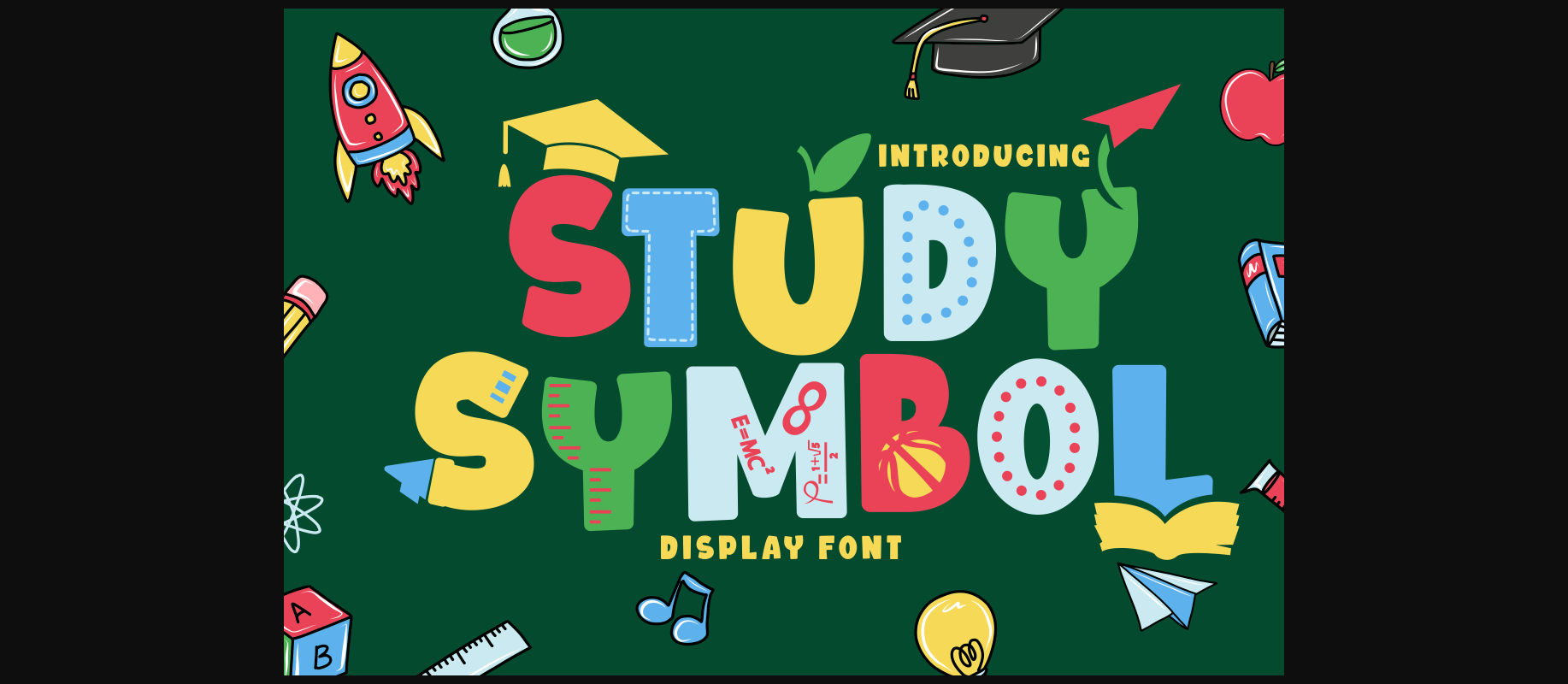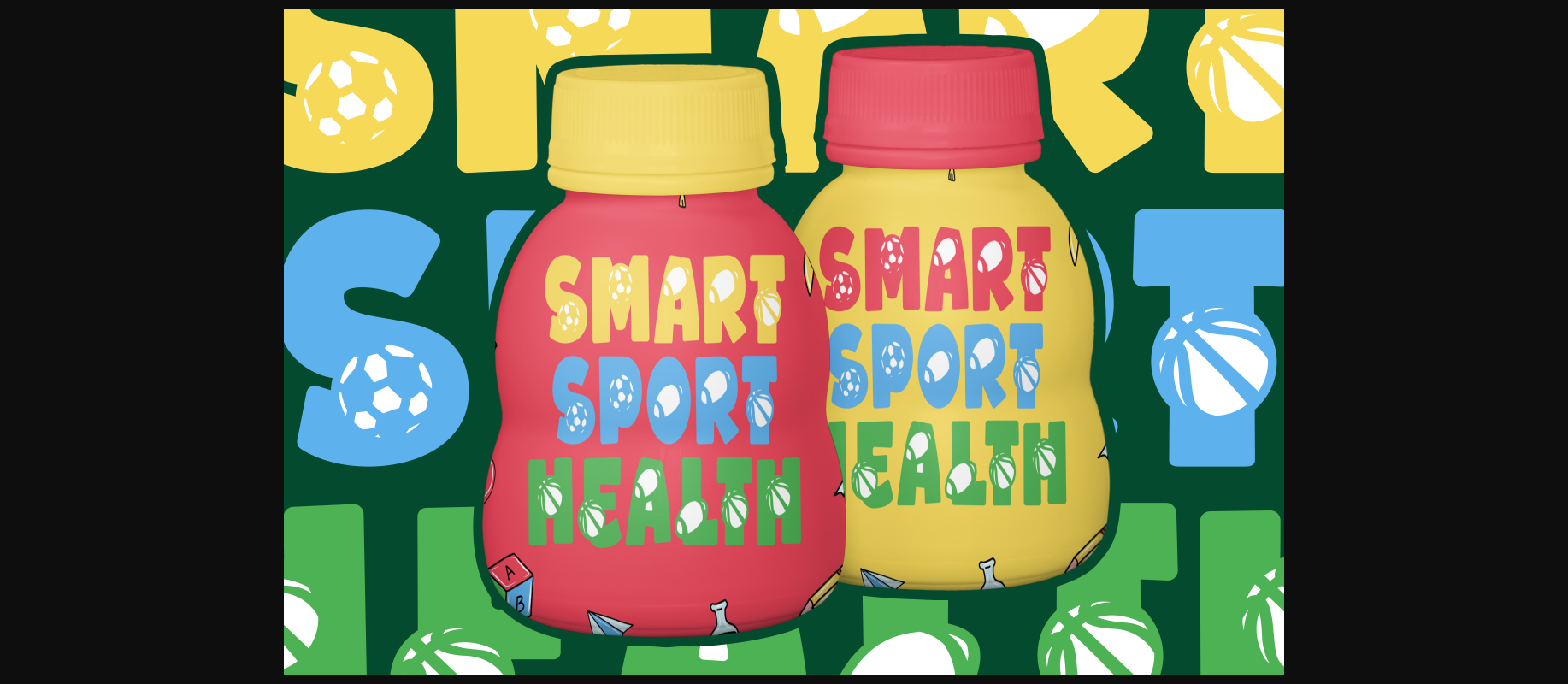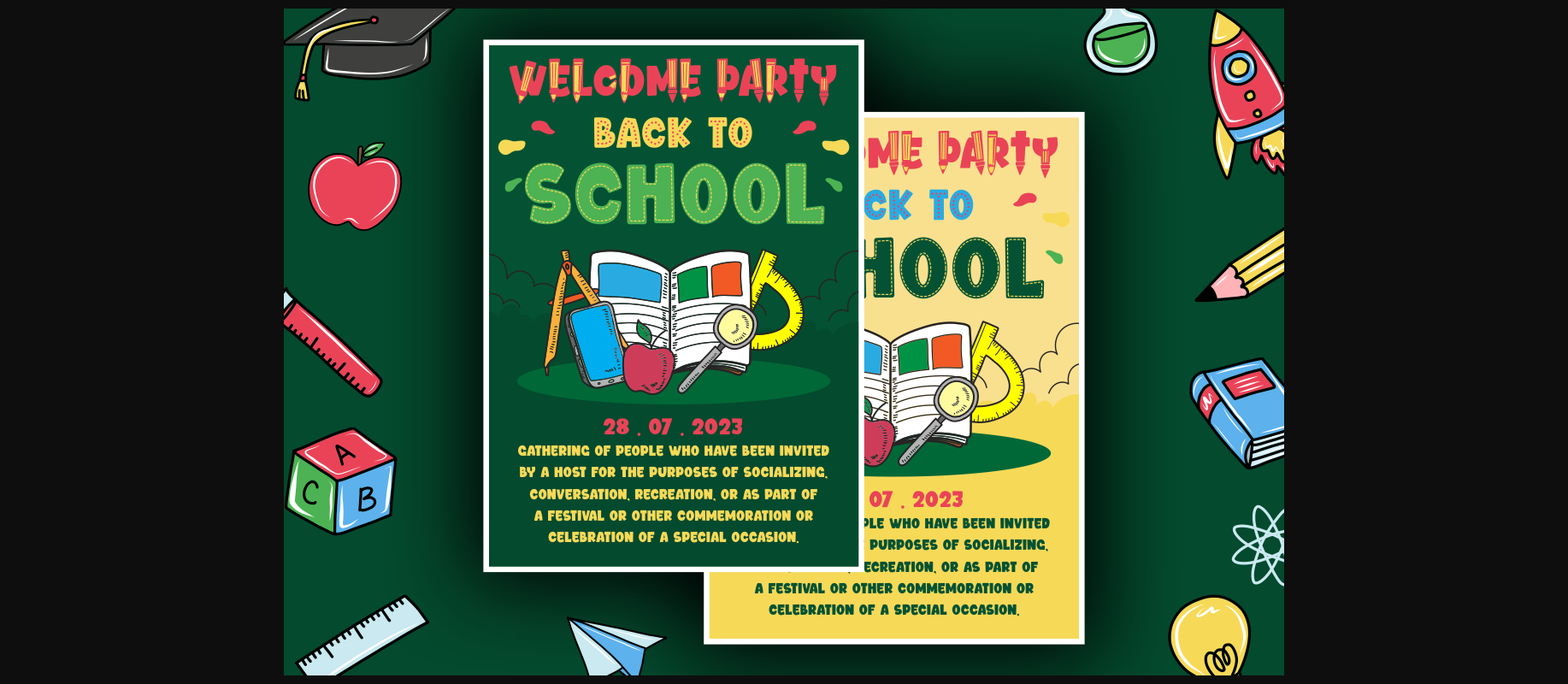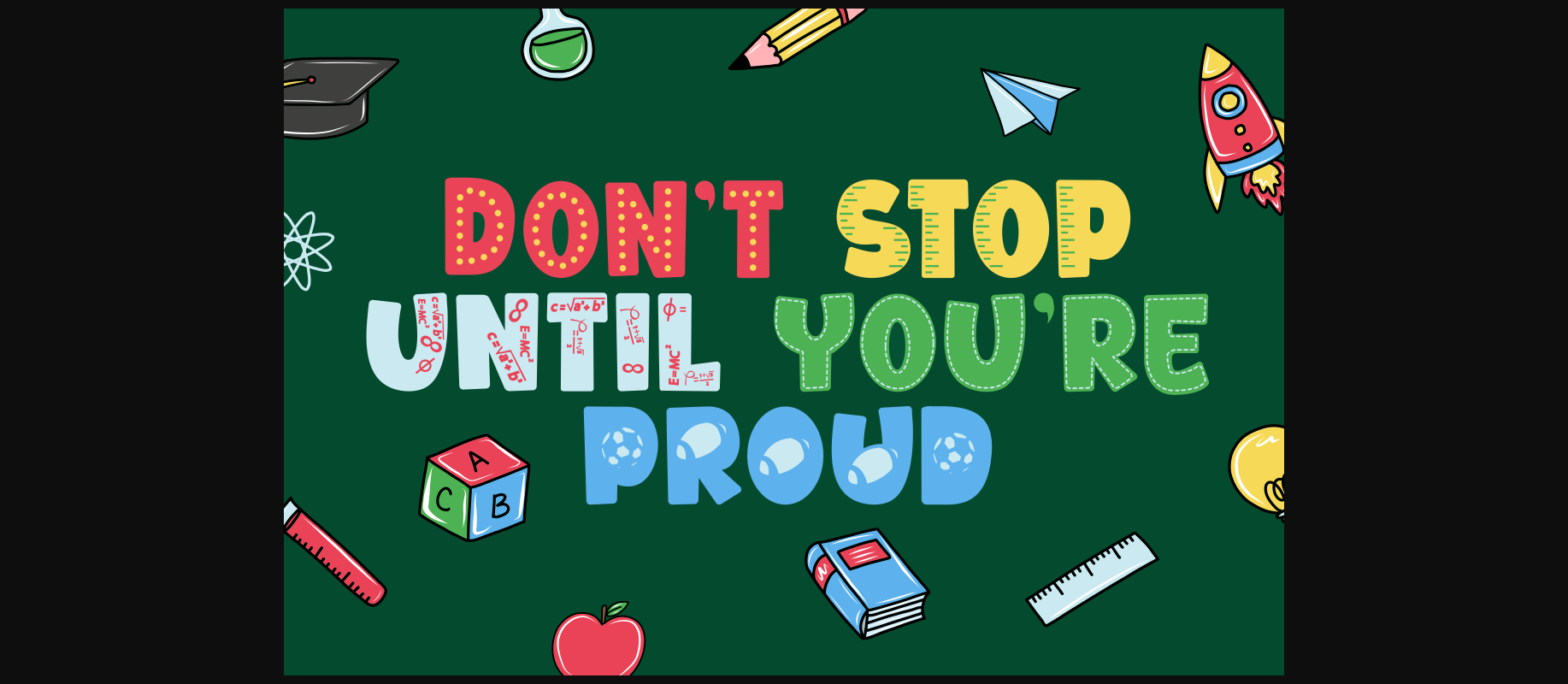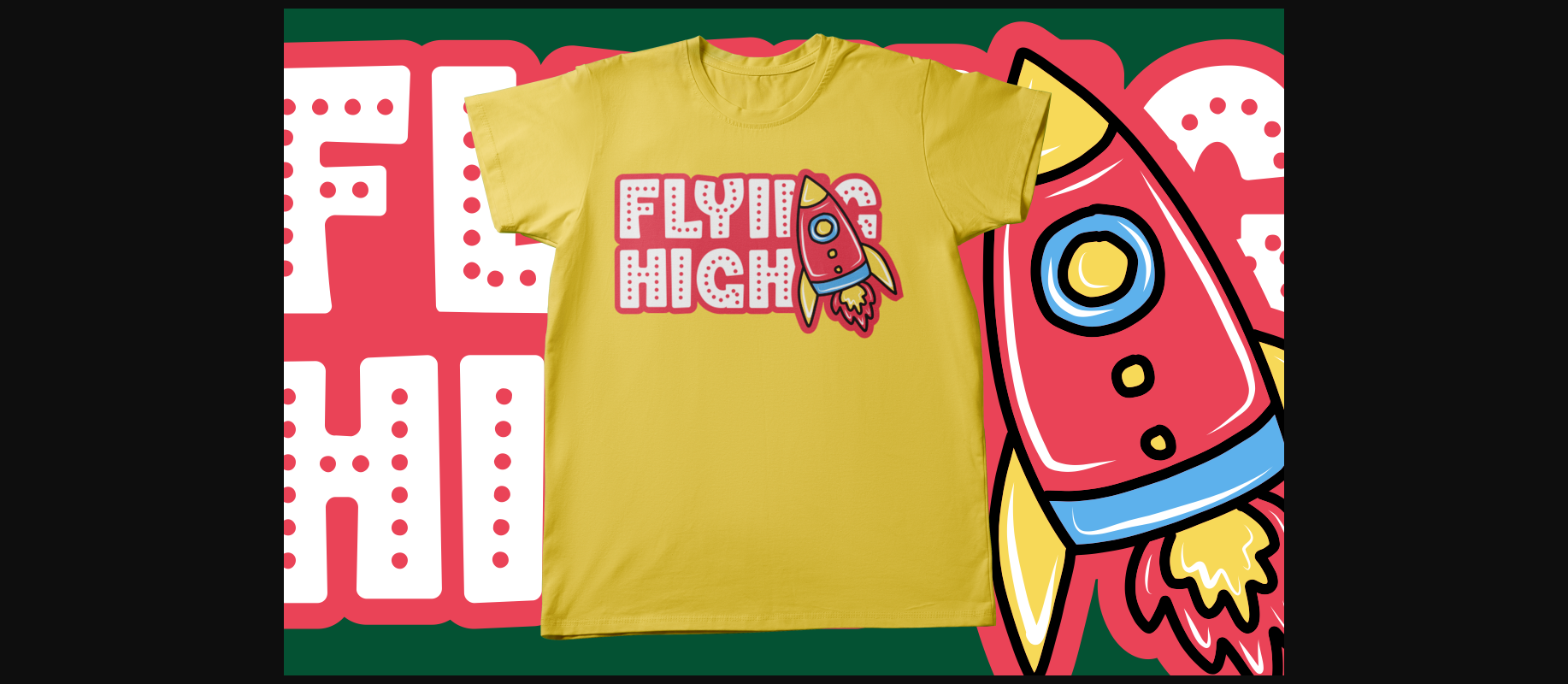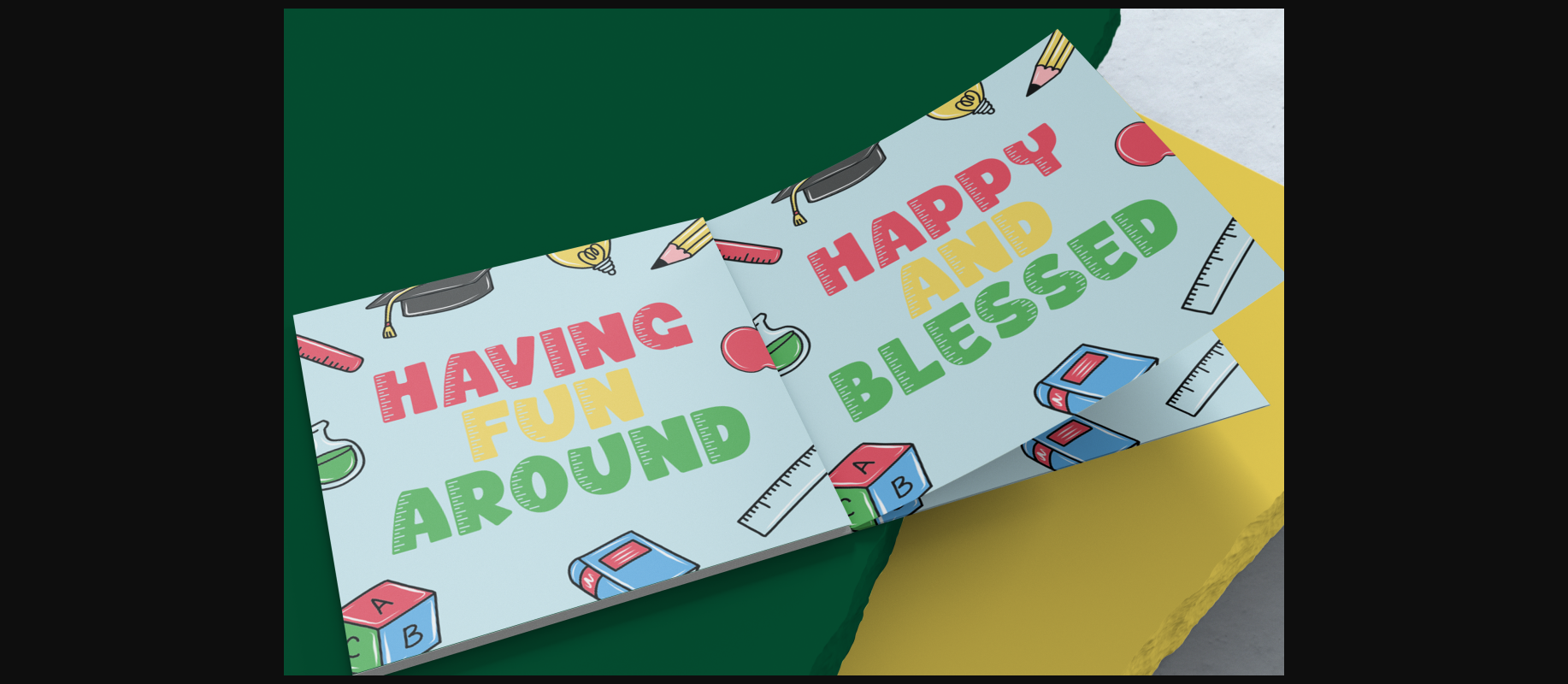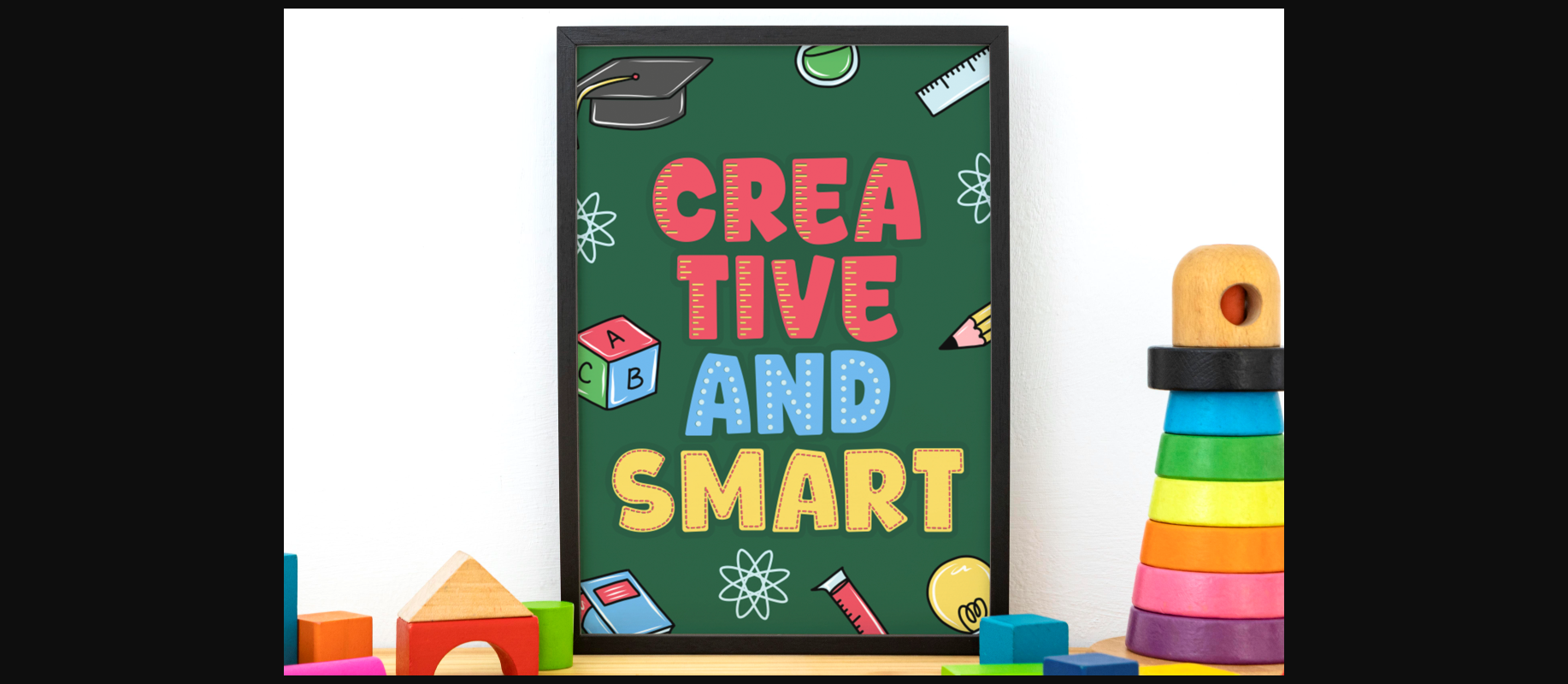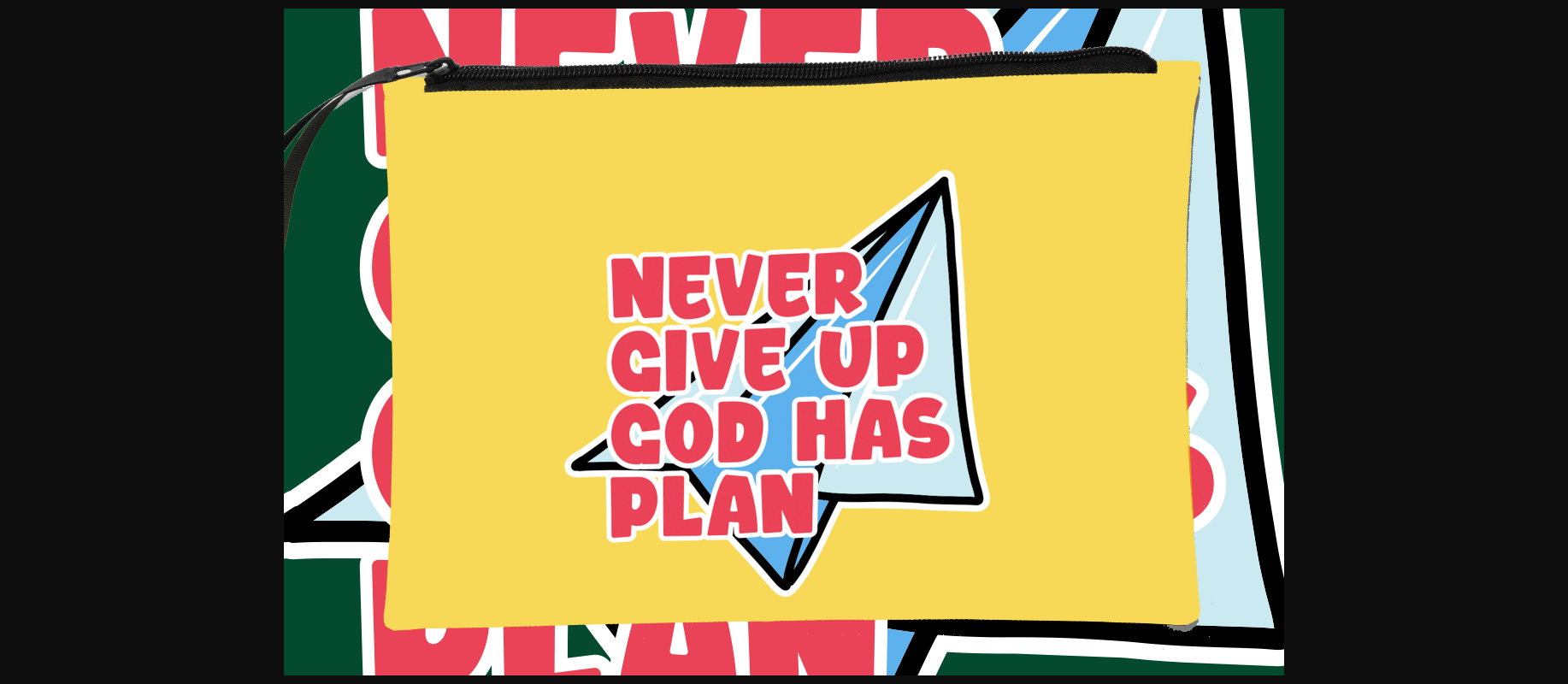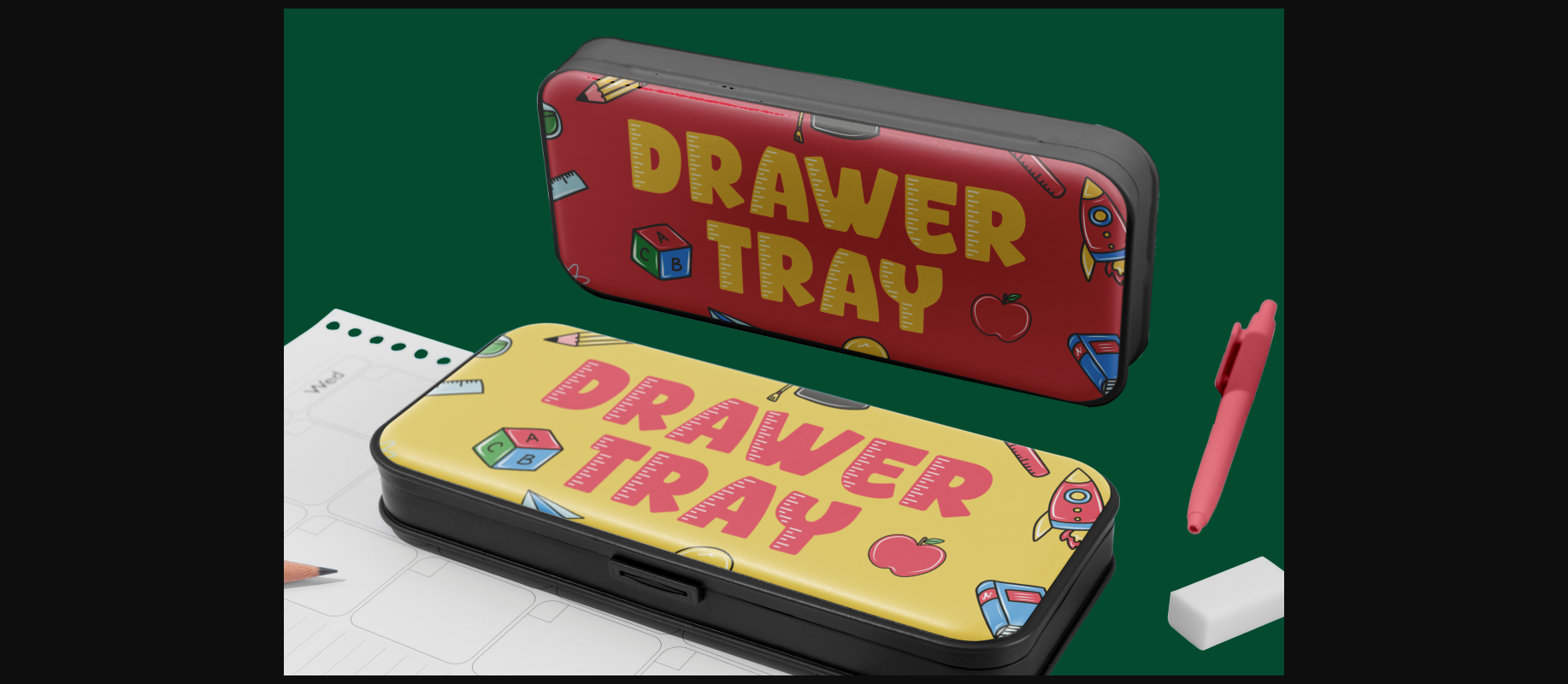
Study Symbol Font
About Study Symbol Font
Study Symbol is a whimsical and bold typeface designed to ignite the joy of learning and creativity. With its playful, thick lines and soft edges, this font adds a touch of fun to educational projects. Whether used on its own or in combination with any of its ten thematic variations, Study Symbol brings a sense of wonder to your designs.
With ten unique variations inspired by education, including books, apples, math symbols, pencils, rulers, and more, this font is the perfect choice for projects centered around schools, students, and the art of learning.
Study Symbol is the ideal font for logos, children’s themes, crafting, invitations, packaging, posters, titles, businesses, greeting cards, stickers, children’s books, magazines, and any educational designs that need a playful touch.